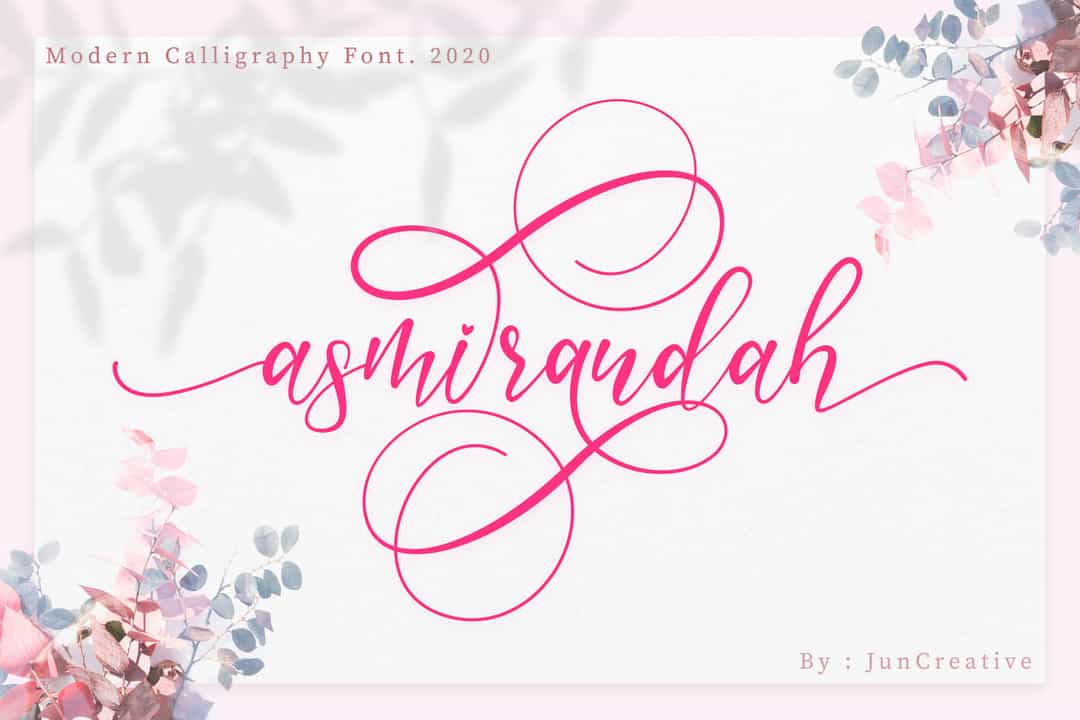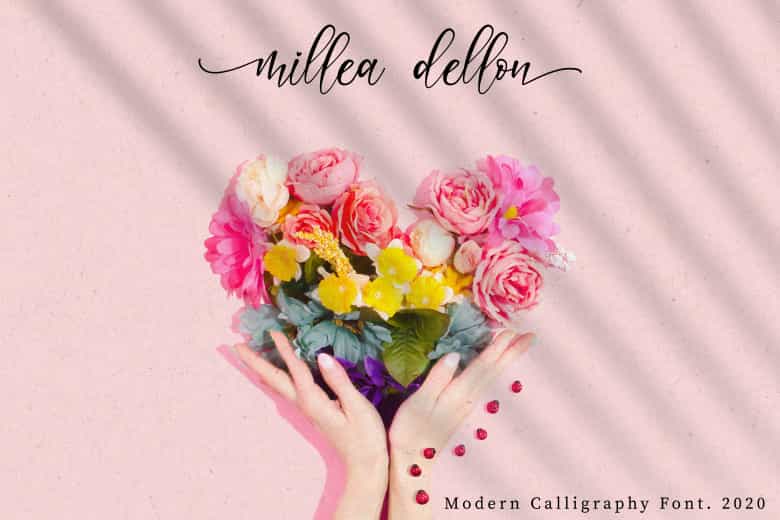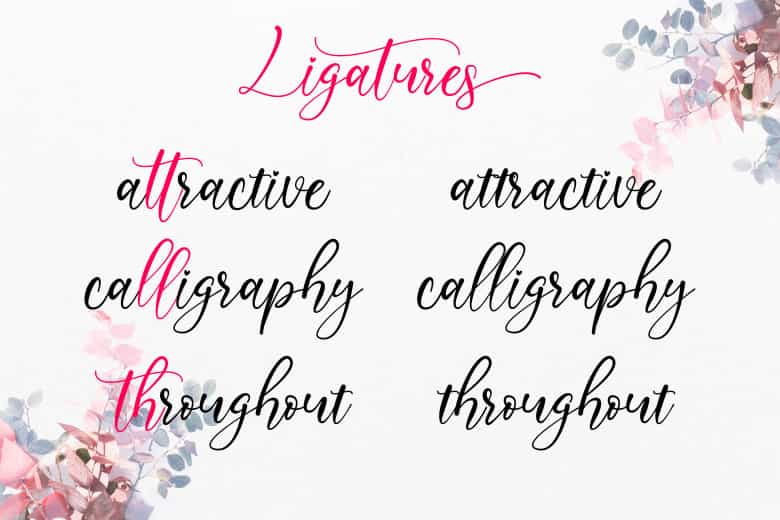
The new Asmirandah Font is now here to make a statement! For those of you who are in need of a bit of sophistication and modernity for your designs, this font was made just for you! These hand lettered fonts are perfect for feminine projects: logos & branding, printable and home decor, website elements, social media graphics and many others.